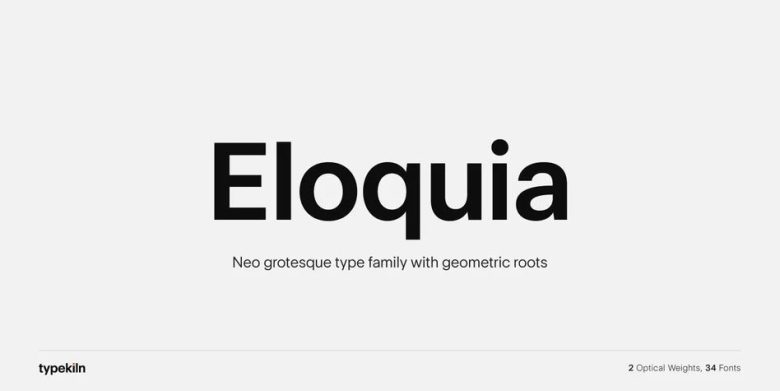
Eloquia Font
Introducing the modern Eloquia Font is a neo-grotesque sans serif type family with geometric roots. Though it’s a neutral typeface the unmistakable influence of geometric shapes gives it warmth and a unique flavor. With 34 fonts in total, Eloquia comes in two distinct optical sizes Text and Display. The Display styles are spaced tightly keeping headlines in mind while the Text styles feature a larger x-height and wider apertures with loose spacing making them highly legibility at small sizes.
The elegant balance of neutrality and modernism makes Eloquia extremely versatile in its functionality. Whether it’s being in the spotlight or in the background blending in, Eloquia can do it all.